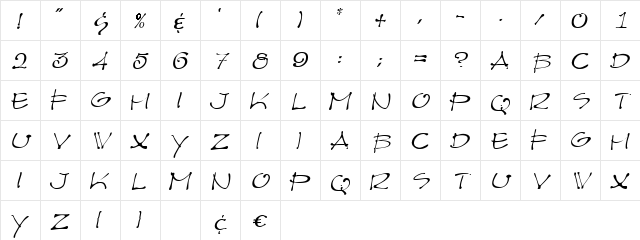
Architect LightOblique Font Preview
Architect LightOblique
Architect LightOblique Font Details
| Style | LightOblique |
Design Context for Architect Typeface
Architect is a composed and adaptable typeface that performs quietly and consistently across a wide range of design contexts. Its italic angle brings a sense of urgency and motion to the letterforms. The delicate stroke weight brings airiness and refinement to layouts.
Pro Tip: Use Architect for emphasis, pull quotes, and subheadings where its slanted energy can add rhythm to the layout.